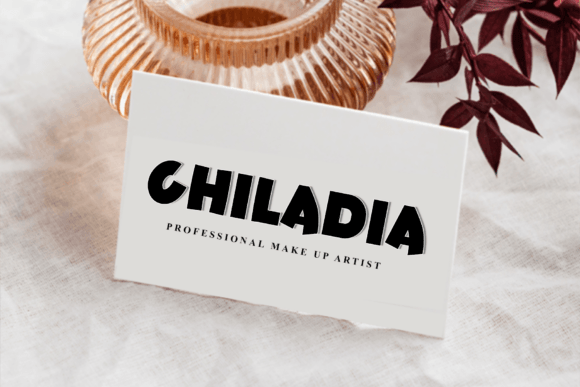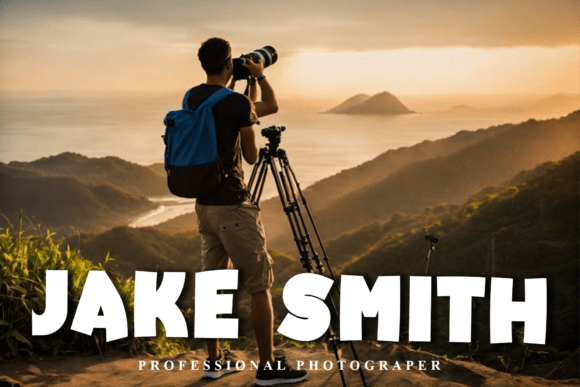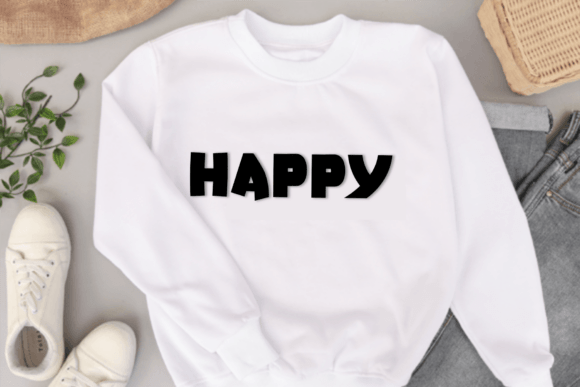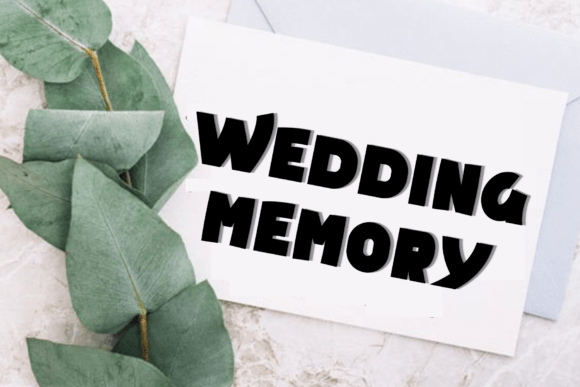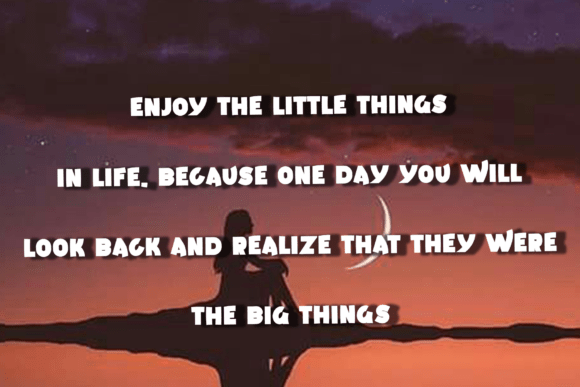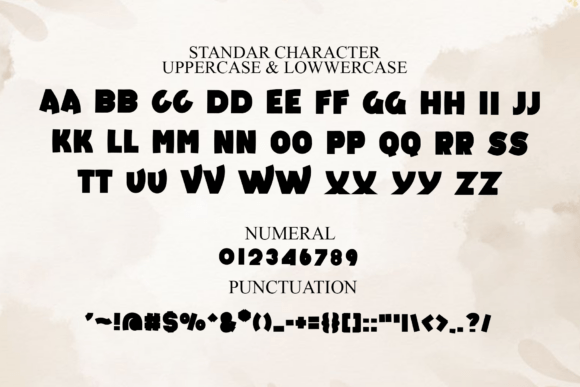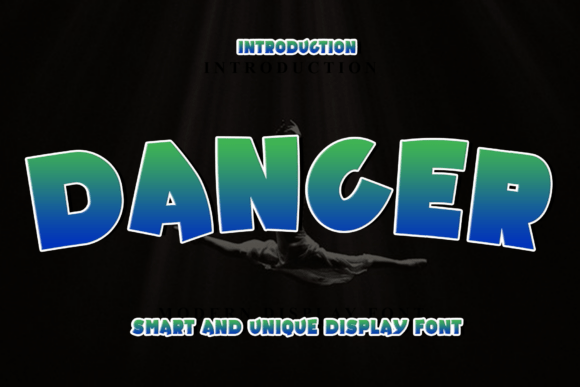
Dancer Font: The Perfect Choice for Creative and Playful Designs
Are you looking for a font that can add a touch of warmth and friendliness to your designs? Look no further than the Dancer Font. This casual and creative font is perfect for personal projects, invitations, social media graphics, and any other design that needs a playful and approachable feel.
The Characteristics of Dancer Font
The Dancer Font is characterized by its round, playful strokes that create a relaxed and carefree vibe. The font’s charming, hand-drawn aesthetic adds a fun and unique touch to any design, making it perfect for designers and crafters who want to add a personal touch to their work.
One of the standout features of the Dancer Font is its standard PUA Encoded glyphs. This means that the font is equipped with a wide range of characters and symbols that can be used in various design applications, including Adobe Photoshop, Corel, Adobe Illustrator, Canva, and many others.
Uses of Dancer Font
The Dancer Font is a versatile font that can be used in a wide range of design projects. Here are some ideas for using this font:
- Personal Projects: The Dancer Font is perfect for personal projects, such as scrapbooking, card making, and journaling. Its playful and approachable feel makes it ideal for adding a personal touch to your designs.
- Invitations: The font’s charming and hand-drawn aesthetic makes it perfect for invitations, such as wedding invitations, birthday party invitations, and baby shower invitations.
- Social Media Graphics: The Dancer Font is also great for social media graphics, such as Facebook posts, Instagram graphics, and Twitter headers. Its playful and creative feel makes it perfect for adding a fun and unique touch to your social media designs.
- Crafting: The font is also perfect for crafters who want to add a personal touch to their projects. Whether you’re making handmade cards, gift tags, or other crafts, the Dancer Font is a great choice.
Benefits of Using Dancer Font
There are many benefits to using the Dancer Font in your designs. Here are a few:
- Unique and Creative: The Dancer Font is a unique and creative font that can add a touch of personality to your designs.
- Easy to Read: The font is easy to read, even at small sizes, making it perfect for use in a wide range of design projects.
- Versatile: The Dancer Font is a versatile font that can be used in a wide range of design applications, from personal projects to commercial designs.
- PUA Encoded: The font’s standard PUA Encoded glyphs make it easy to use in a wide range of design applications.
Tips for Using Dancer Font
Here are a few tips for using the Dancer Font in your designs:
- Use it with Other Fonts: The Dancer Font can be paired with other fonts to create a unique and creative look.
- Experiment with Colors: The font looks great in a wide range of colors, so don’t be afraid to experiment and find the perfect color for your design.
- Add Graphics and Images: The Dancer Font can be used with graphics and images to create a fun and playful design.
The Dancer Font is a unique and creative font that is perfect for designers and crafters who want to add a touch of warmth and friendliness to their designs. Its playful and approachable feel makes it ideal for use in a wide range of design projects, from personal projects to commercial designs. With its standard PUA Encoded glyphs, the Dancer Font is easy to use in a wide range of design applications. So why not give it a try and see how it can add a fun and unique touch to your designs?